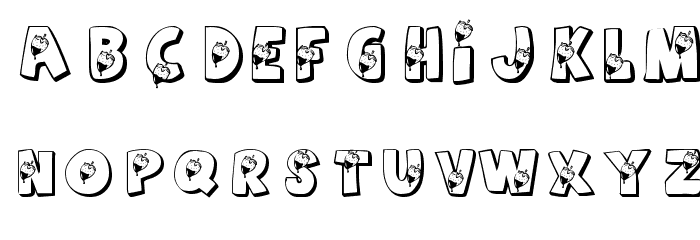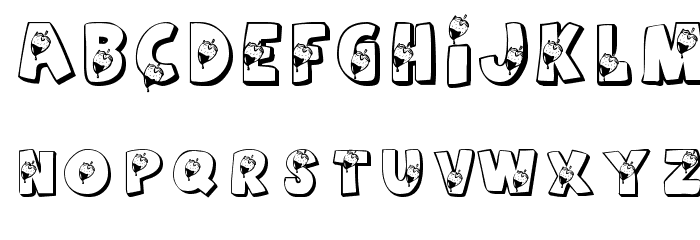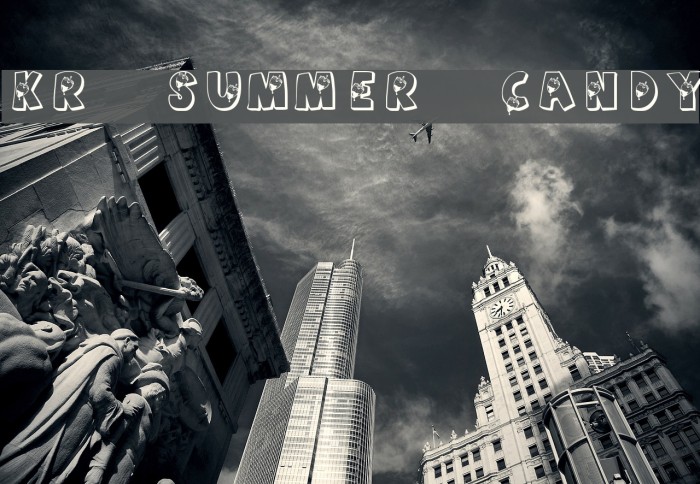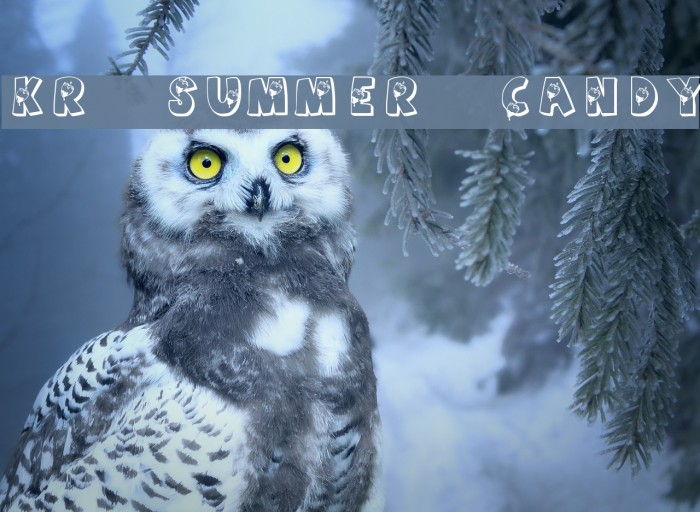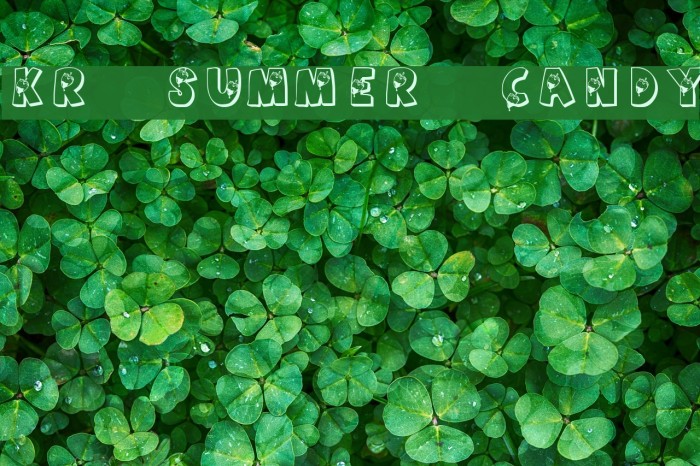
KR Summer Candy Font
This playful and whimsical font features bold, blocky letters with a unique twist. Each character is adorned with candy-themed illustrations, adding a fun and lively touch. The letters have a three-dimensional appearance with a shadow effect, enhancing their playful nature. The font is perfect for projects that require a cheerful and energetic vibe, such as children's books, party invitations, or candy shop branding. Its decorative style makes it stand out, while the consistent design across characters ensures readability.
A playful, candy-themed decorative font with bold, blocky letters and shadow effects.
- Proposed Projects: Ideal for children's books, party invitations, candy shop branding, and playful graphic designs.
- Overall Style: Playful, Whimsical
- Use Case: Headlines, Logos, Decorative Text